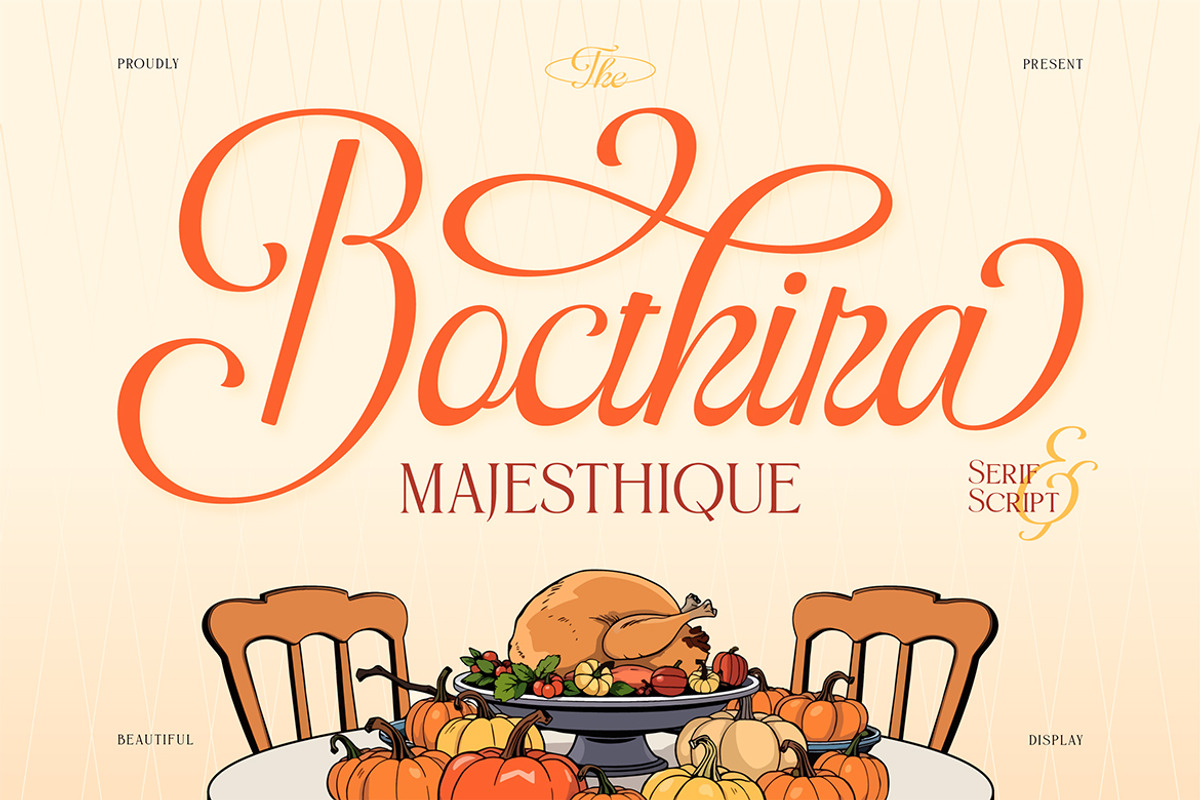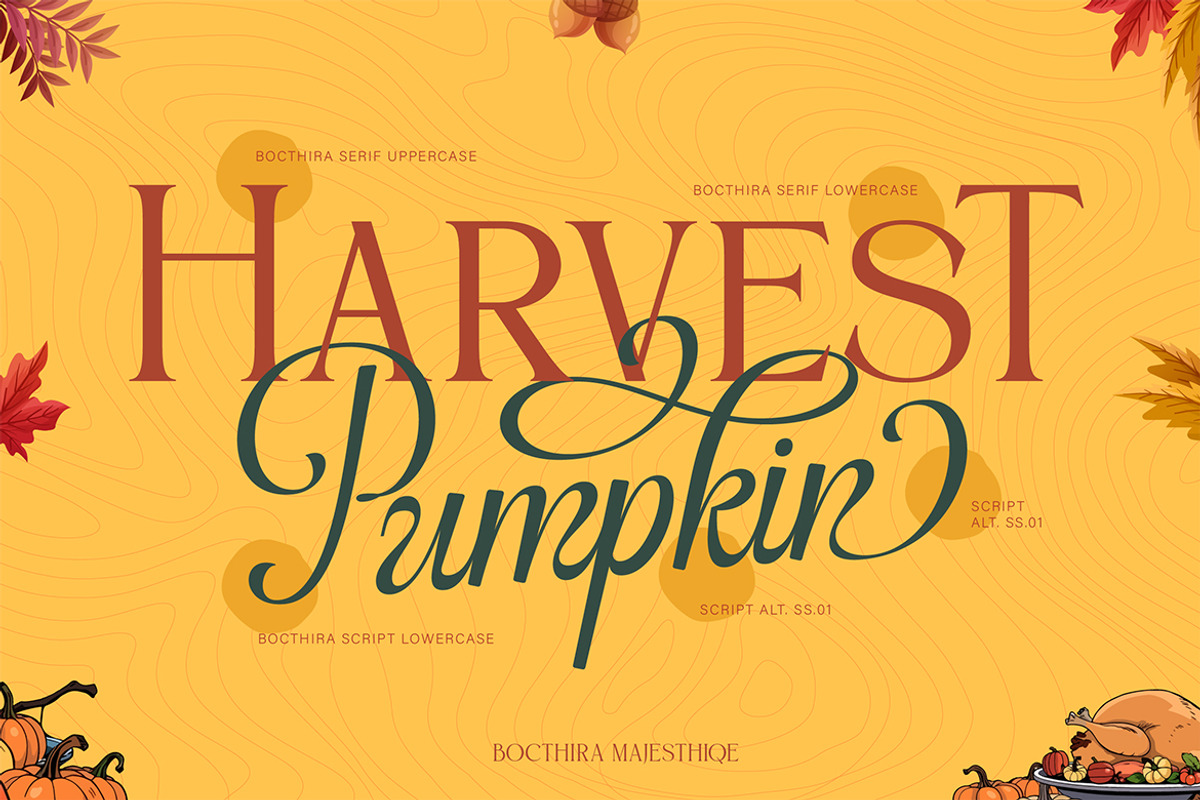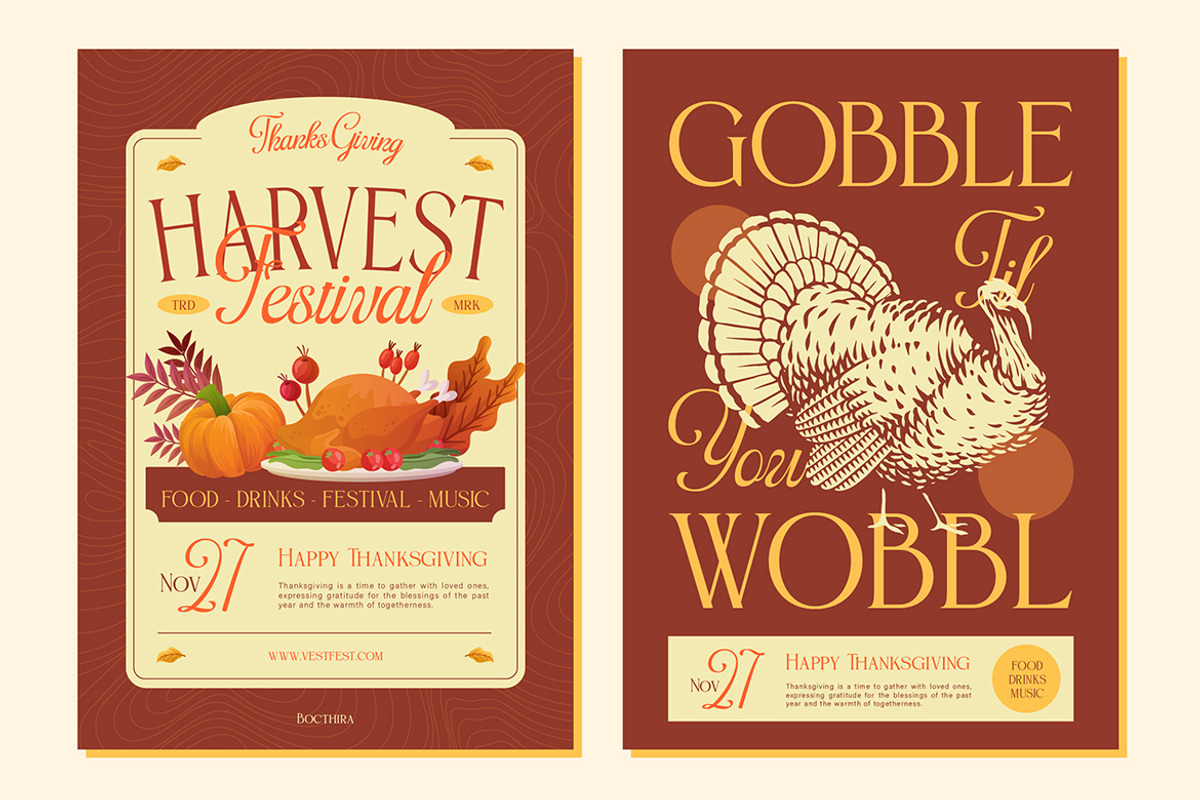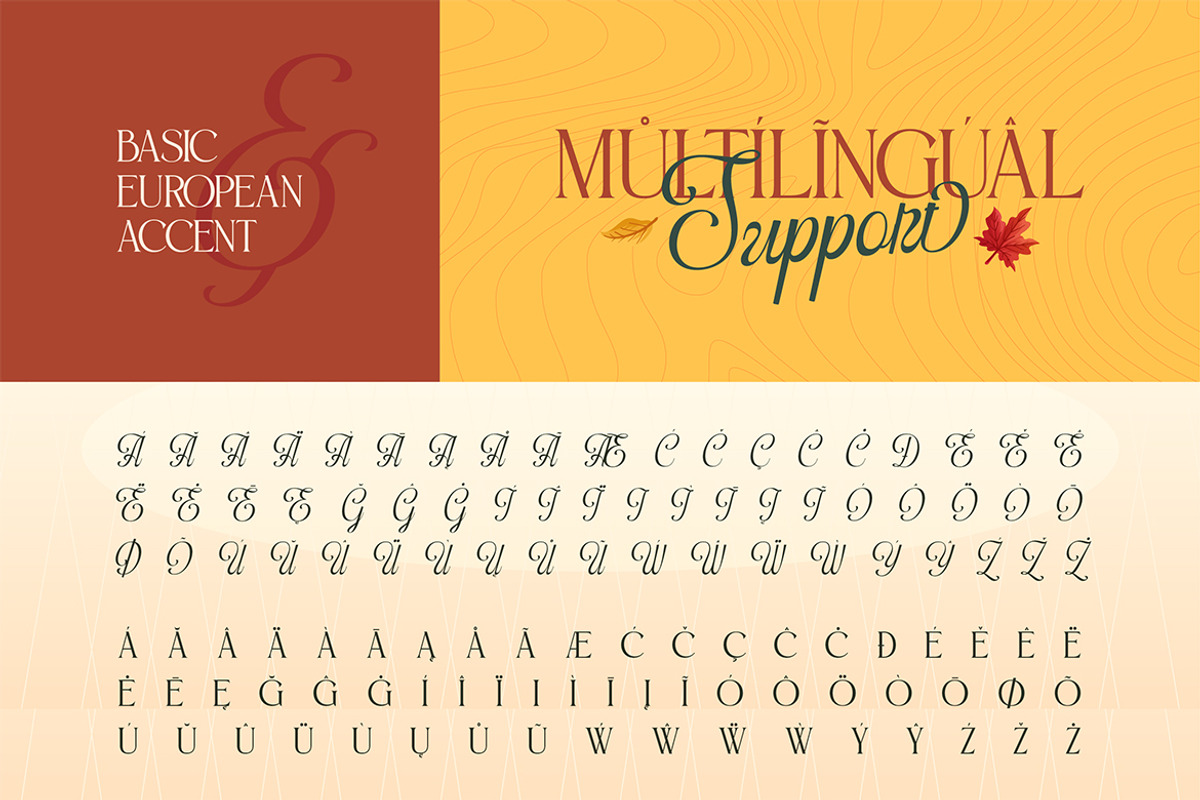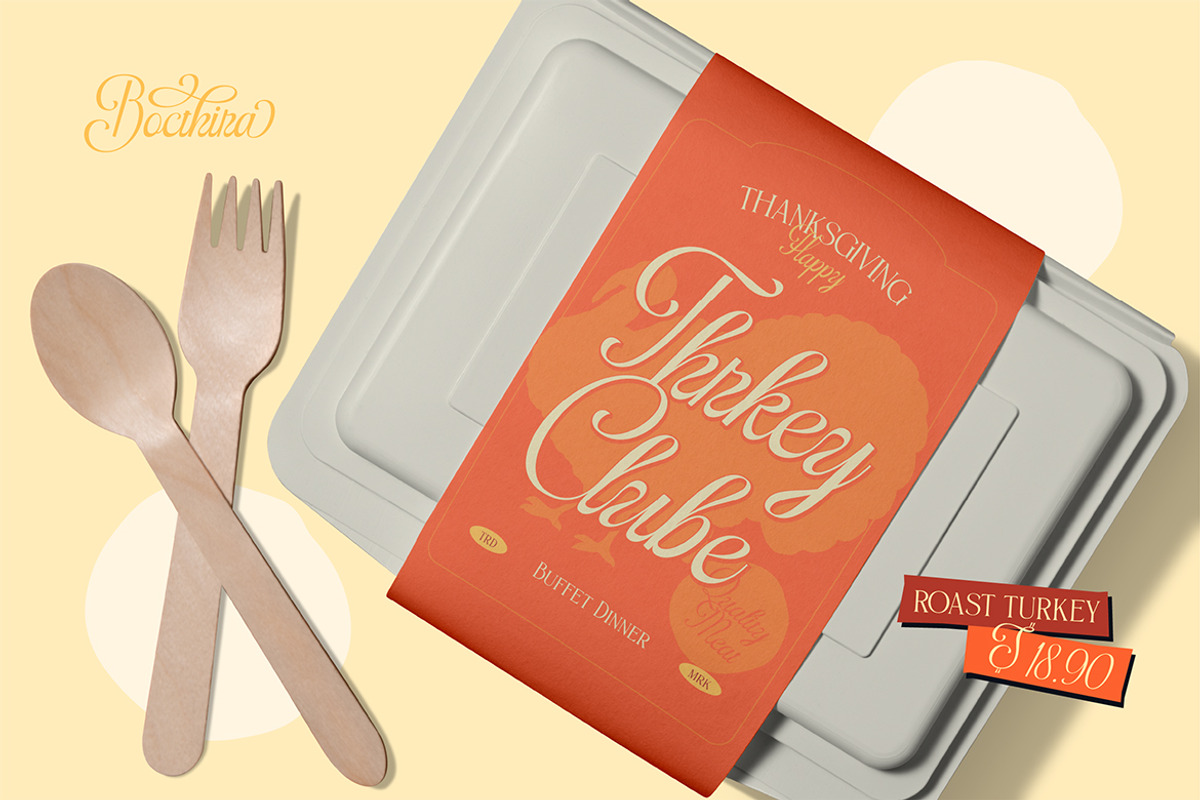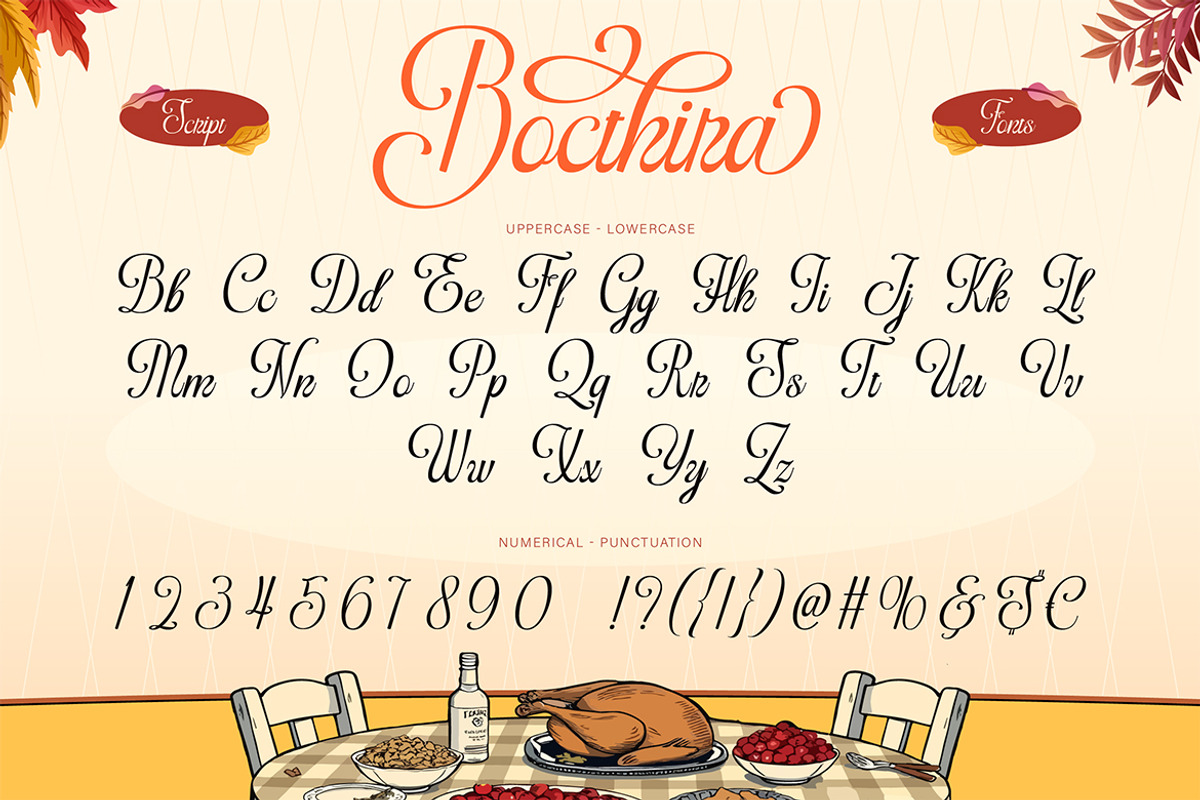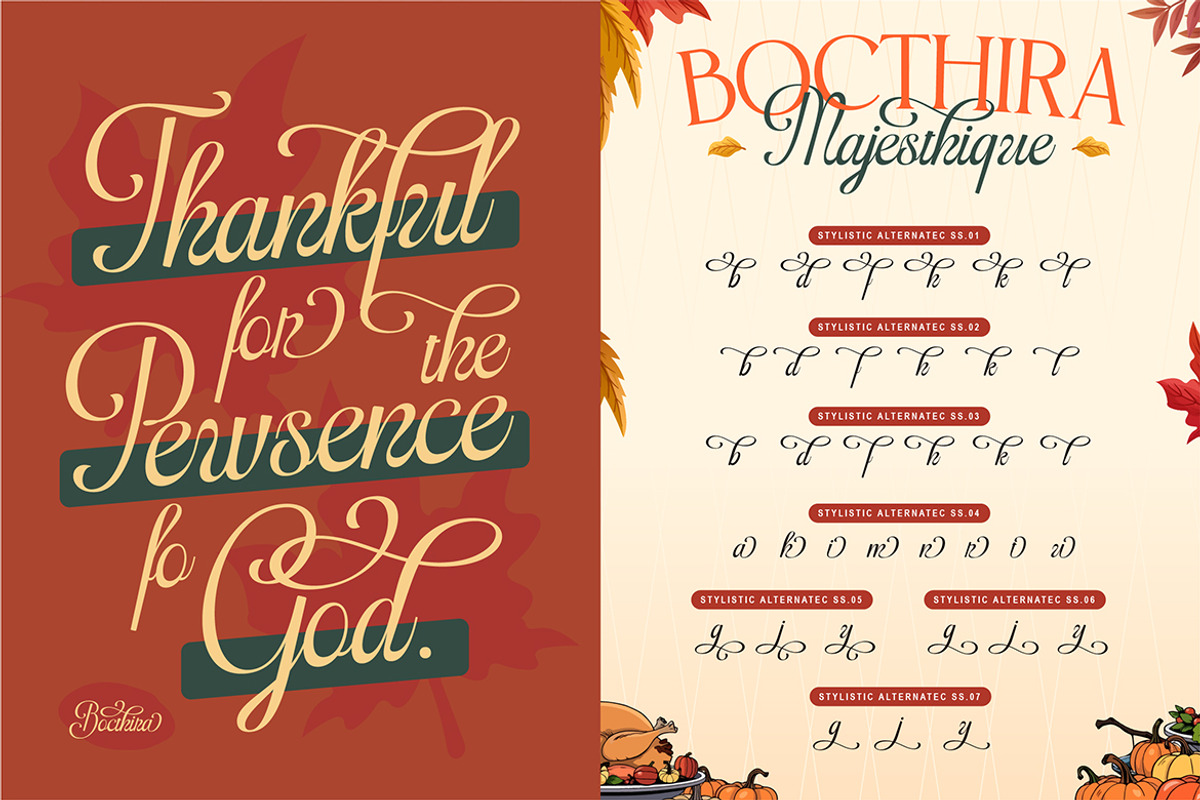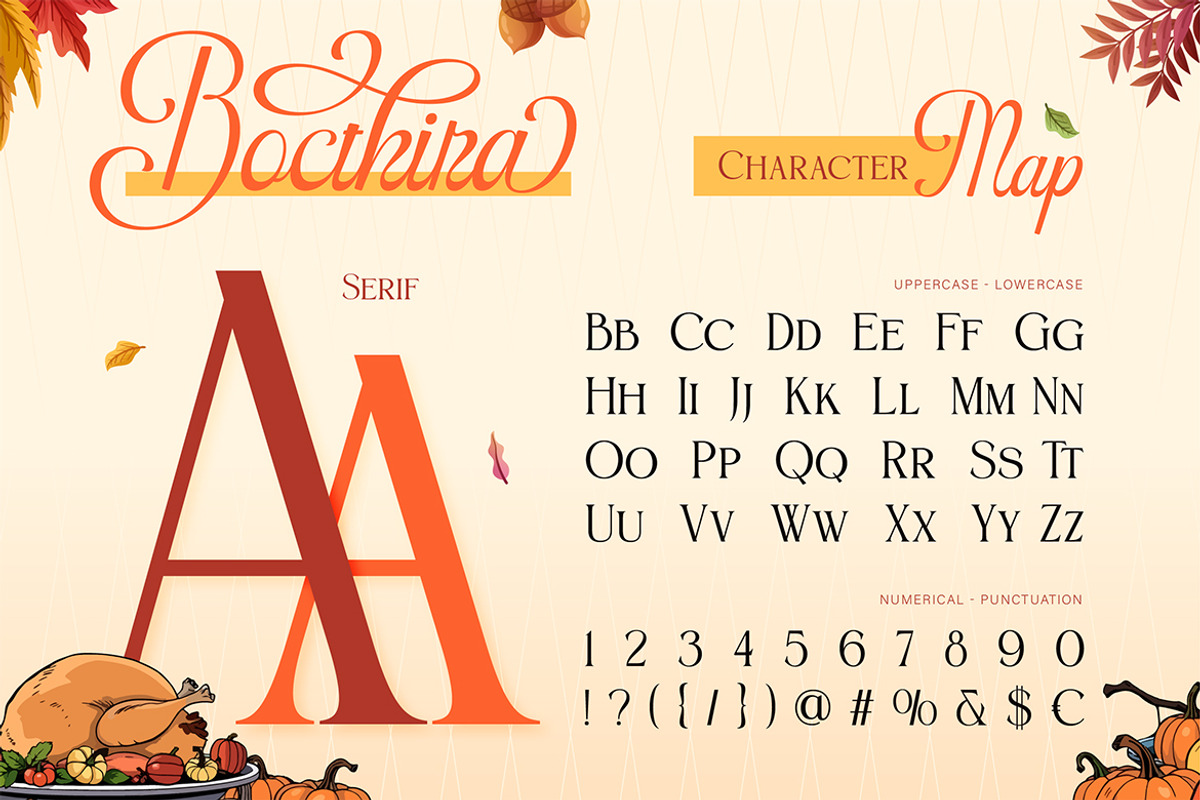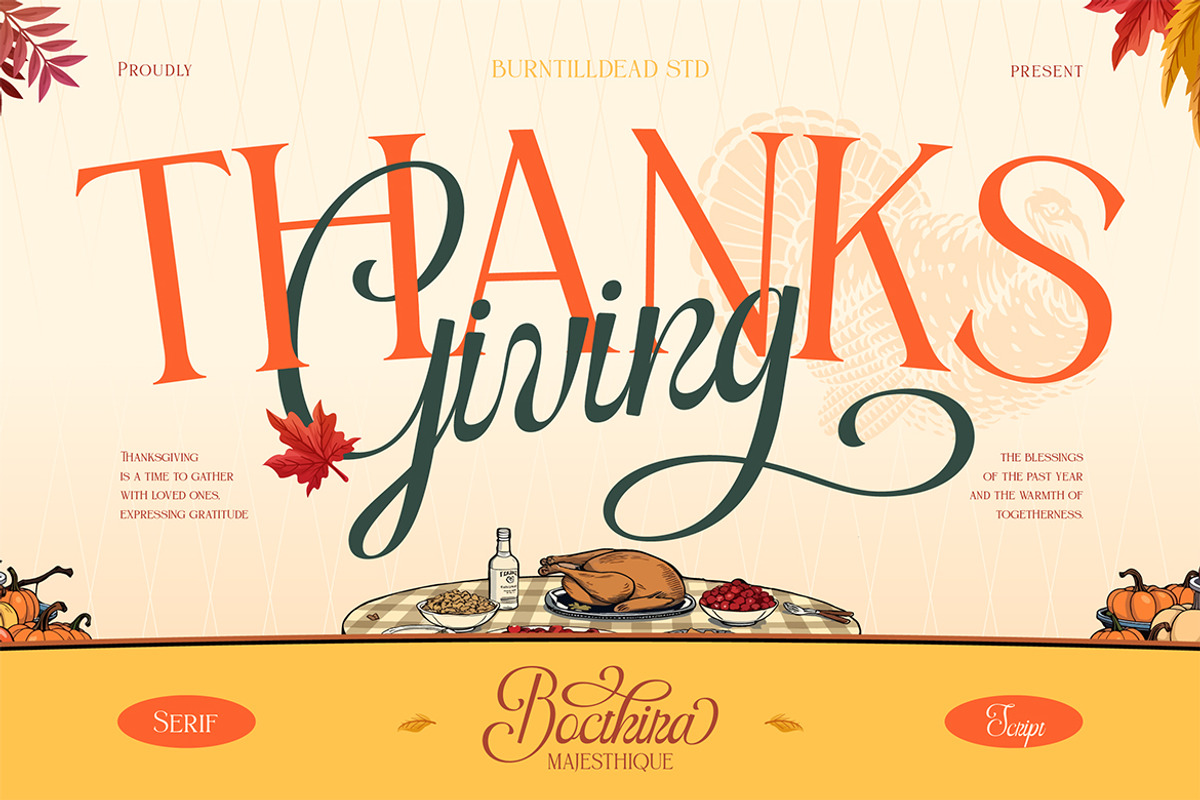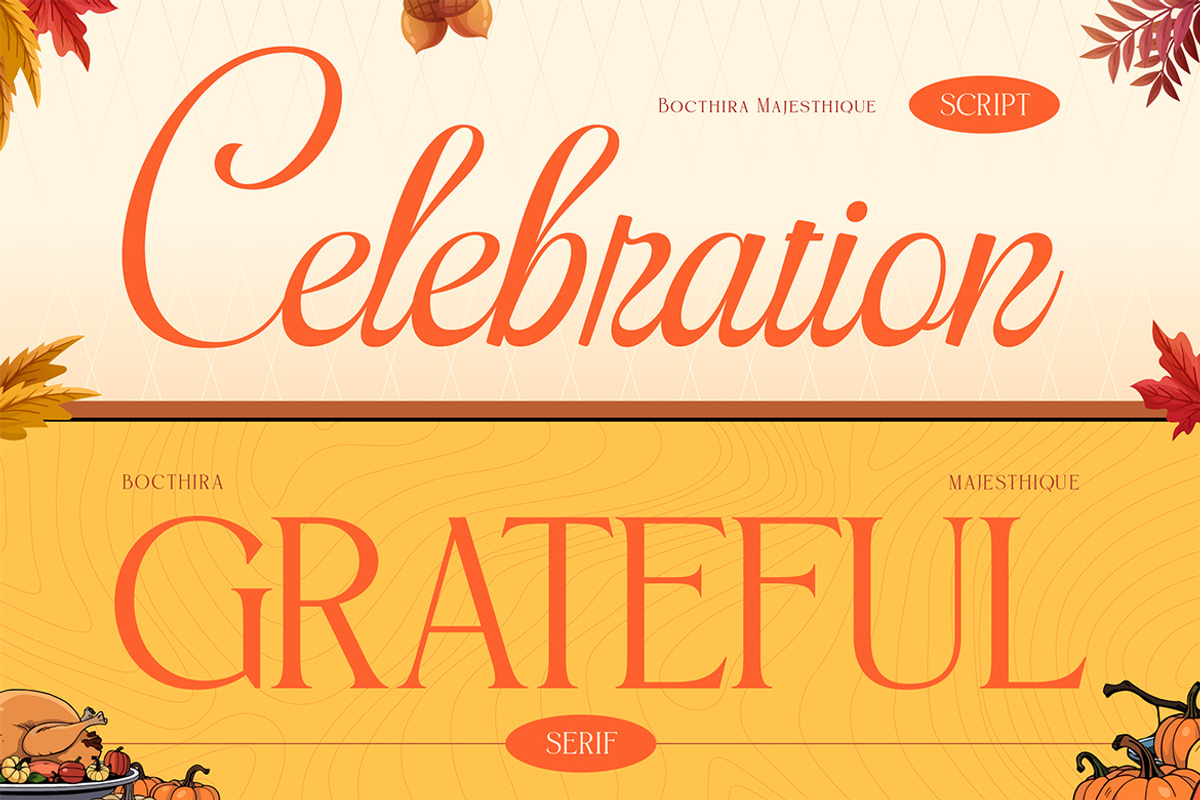
Bocthira Majesthique
Warm, classic, and full of gratitude, let me introduce Bocthira Majesthique, a beautiful pairing of serif and script that feels just like a cozy autumn dinner with your loved ones. It’s elegant yet welcoming, stylish yet heartwarming. Perfect for holiday invitations, Thanksgiving menus, seasonal branding, and heartfelt greeting cards. The serif gives that timeless, majestic touch, while the script add graceful flow — together they create a perfect harmony of sophistication and warmth. Whether you’re designing something to say thank you, celebrate, or simply gather around, Bocthira Majesthique will make every word feel special.
A - Z set (Uppercase & Lowercase)
Number
Bocthira Majesthique Characters Map